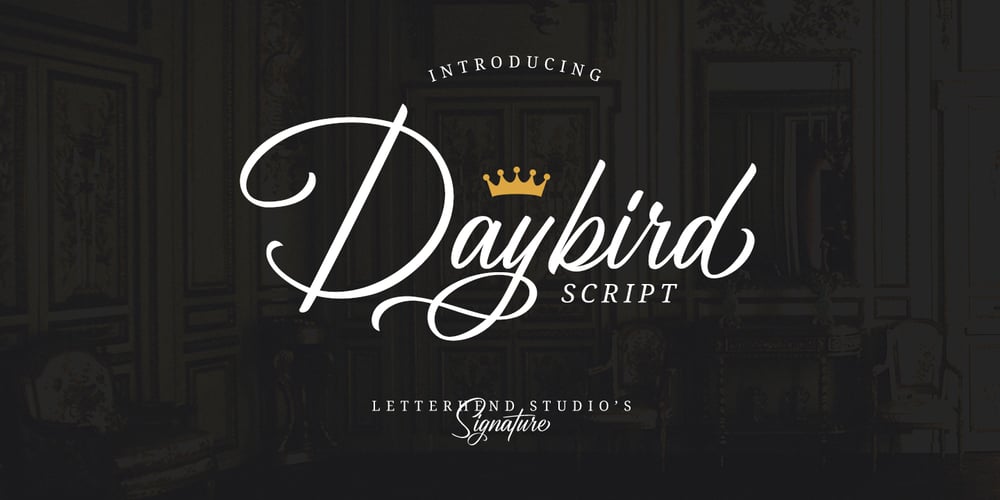
Daybird Script Font Family was designed by Hendry Juanda and published by Letterhend. Daybird Script contains 1 styles and family package options. Daybird is an elegant signature that contain lowercase, uppercase, symbol, and also support multi-language. There’s a lot of alternates in this font. You can use this font to make a logo for branding, beautiful fashion designs, it’s suitable for wedding invitations and authentic signatures. Daybird is also PUA Encoded.